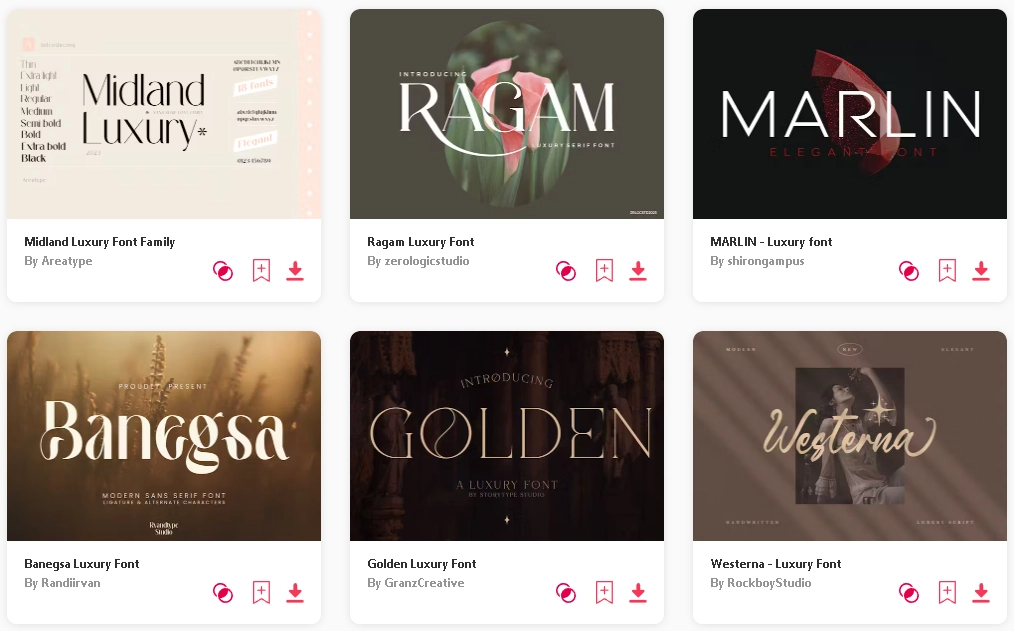
If you’re searching for the best luxury fonts, you’ve come to the right place. Our curated list of premium fonts highlights the most opulent and sophisticated typefaces perfect for elevating your luxury branding and design projects.
What is a Luxury Font?
Luxury fonts exude elegance, class, and prestige. They are designed to add a touch of refinement and exclusivity to any project. Unlike regular fonts, luxury fonts are crafted with meticulous attention to detail, ensuring they convey a high-end look and feel.
Why Choose a Luxury Font?
Choosing the right font is crucial for the success of your project. While striking images can enhance a design, the font must support and elevate the overall aesthetic. A poorly chosen font can undermine even the most well-conceived design.
Discover the Best Luxury Fonts
Let’s explore our selection of the best luxury fonts, designed to add a sophisticated touch to your luxury logos, branding, and other high-end design projects. Whether you’re working on a fashion brand, a premium product line, or an exclusive event, these fonts will help you achieve the desired look of elegance and exclusivity.
1. Luxury Font Duo
Luxury Font Duo offers a combination of modern and elegant serif and signature-style fonts. This duo maintains a feminine and sophisticated feel, making it ideal for various design needs.
The handcrafted style is perfect for logos, branding, invitations, stationery, wedding designs, social media, advertisements, printed quotes, product packaging, labels, photography, watermarks, special events, and magazine layouts.
2. Rudge – Classy Elegant Luxury Font
Rudge is a serif font designed specifically for luxury branding needs. This font comes with extra ligatures and alternates in unique shapes, adding value to your brand. It’s perfect for designers or product owners looking to give their designs a luxurious and modern touch.
Rudge offers a range of unique characters, allowing you to create unlimited variations for your creative projects.
Features:
- Unique creative characters
- Preview inspirations included
- Supports both lowercase and uppercase characters.
3. Pastilaris Modern Elegant Luxury Font
Pastilaris is a modern typeface that offers four distinct styles, enhancing any project with its elegance and versatility. Featuring up to 430 glyphs, this font provides numerous design options and variations, making it ideal for various creative endeavors.
- Perfect for design, logos, social media, branding, advertising, product design, magazine titles, product packaging, headers, posters, and merchandise.
- Offers four style typefaces.
- Comes with standard glyphs, style alternates, and ligatures.
4. Moonic – Luxury Serif Font
Moonic is a luxurious serif font designed with meticulous attention to detail. Each character exudes modern elegance, making it perfect for sophisticated design projects like posters, banners, logos, invitations, magazine covers, quotes, headings, printed products, and social media graphics.
Features:
- Comes with Regular and Italic styles.
- Includes alternates and ligatures for creative flexibility.
Moonic is designed to bring a touch of luxury and elegance to any project, making it a must-have for designers seeking a refined and modern serif font.
5. Castle Begale Luxury Serif Font
Castle Begale is a sophisticated luxury serif font designed to elevate any project. Ideal for posters, social media posts, branding, and personal projects, this font brings a touch of elegance and refinement to both digital and printed creative works.
Features:
- Suitable for various design projects.
- Enhances visual appeal with a luxurious touch.
9. Elysium Luxury Serif Font
Elysium is a sophisticated serif font that excels in both text readability and striking headlines. Its versatility makes it ideal for logos, posters, covers, packaging, t-shirts, business cards, wedding cards, and more. Whether for elegant branding or captivating editorial layouts, Elysium provides a luxurious touch to any design project.